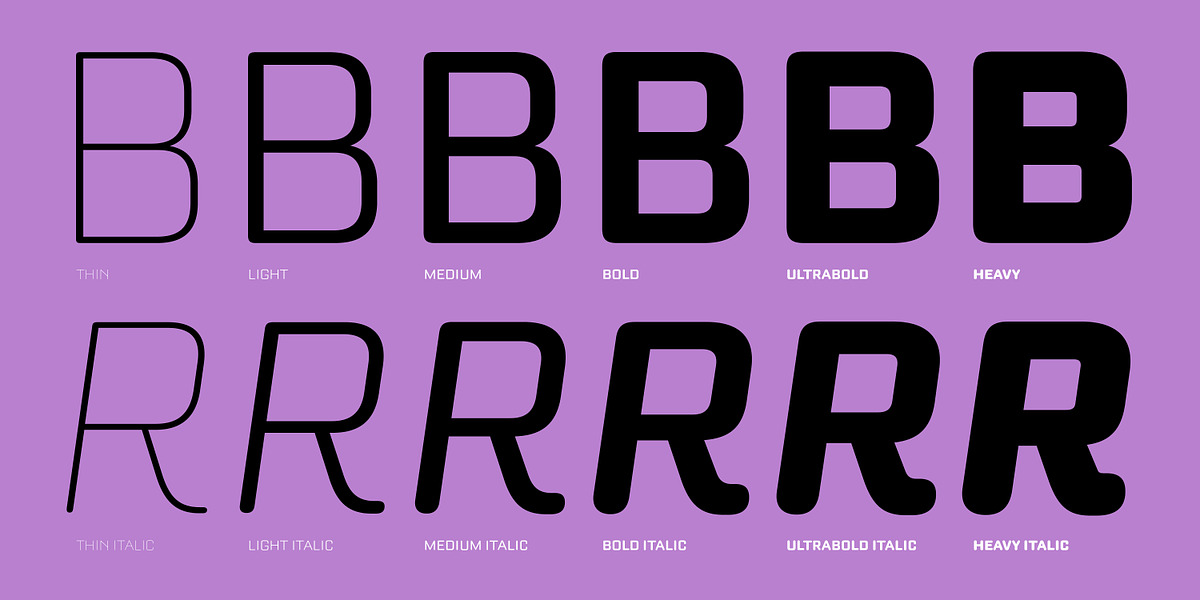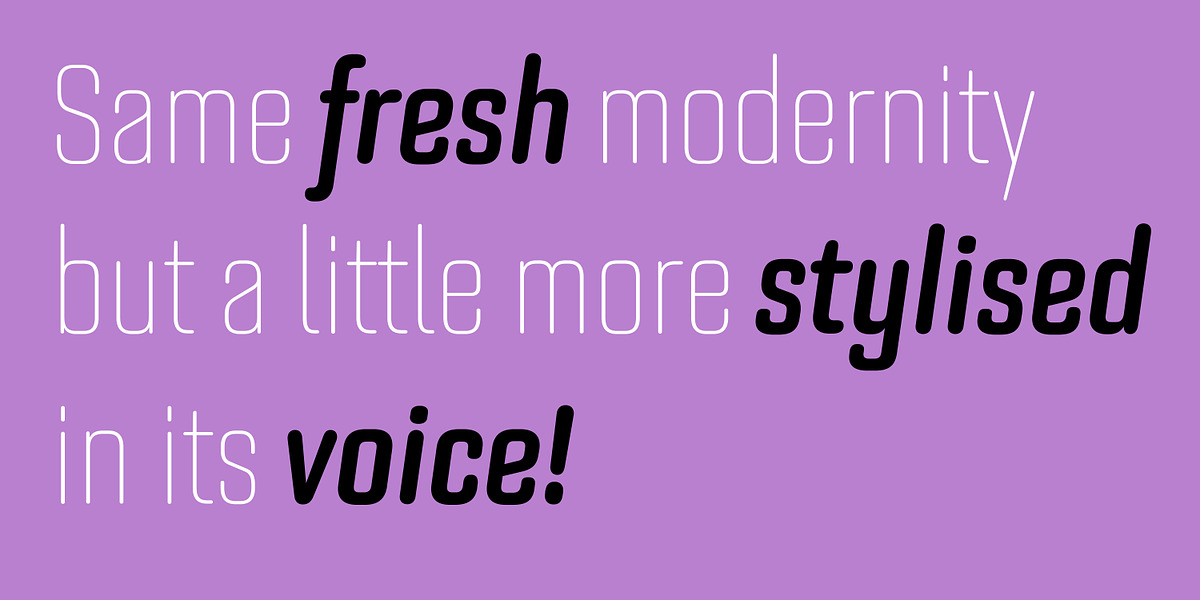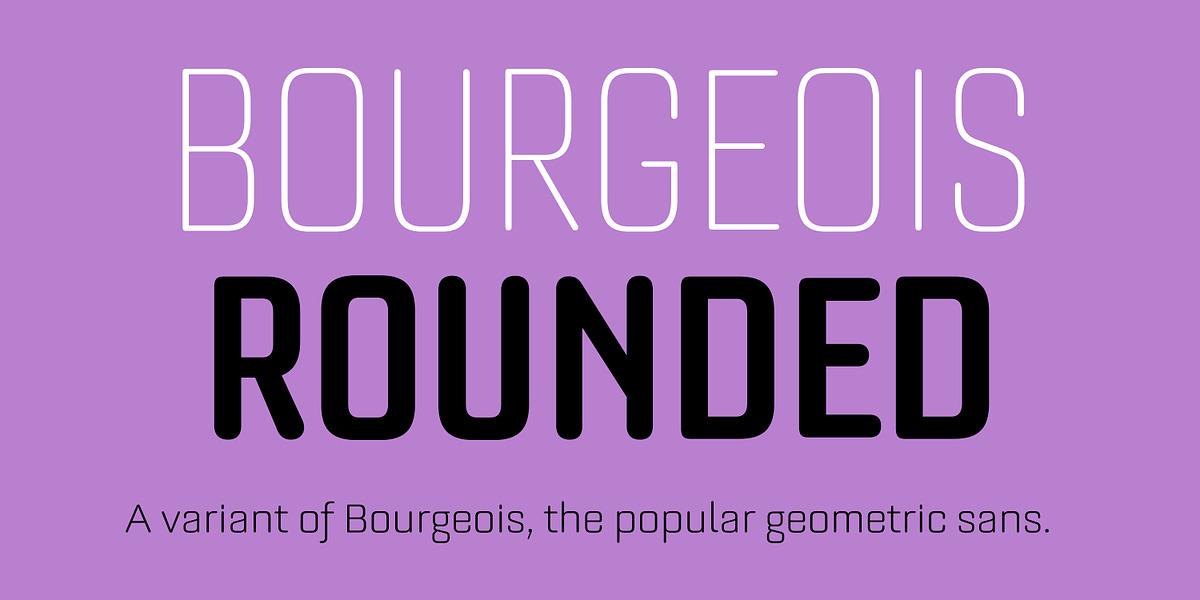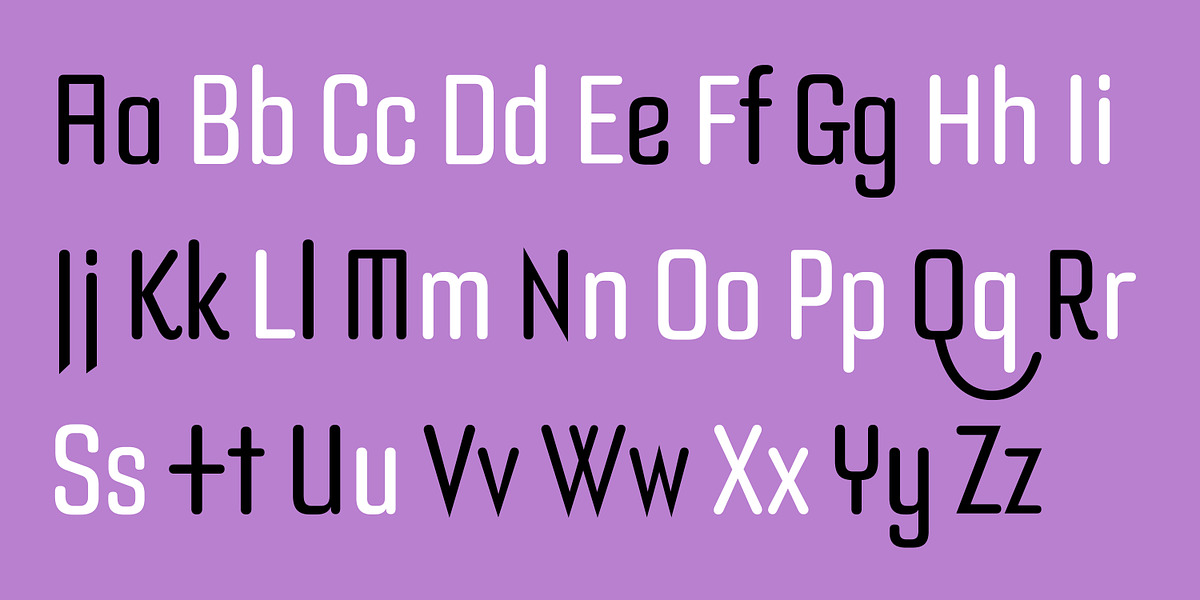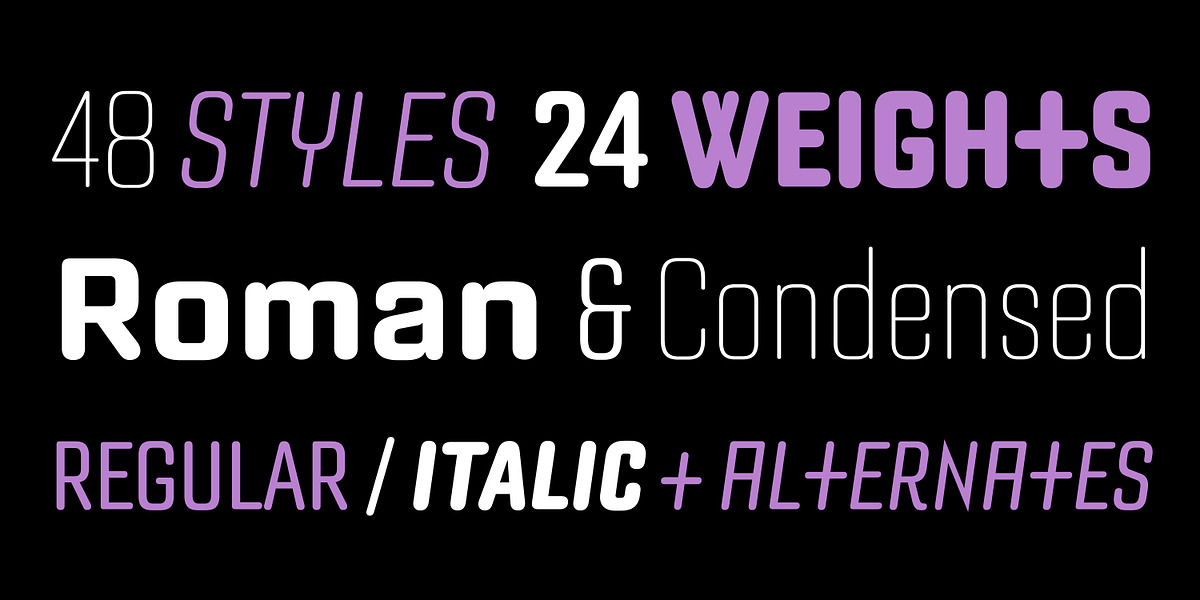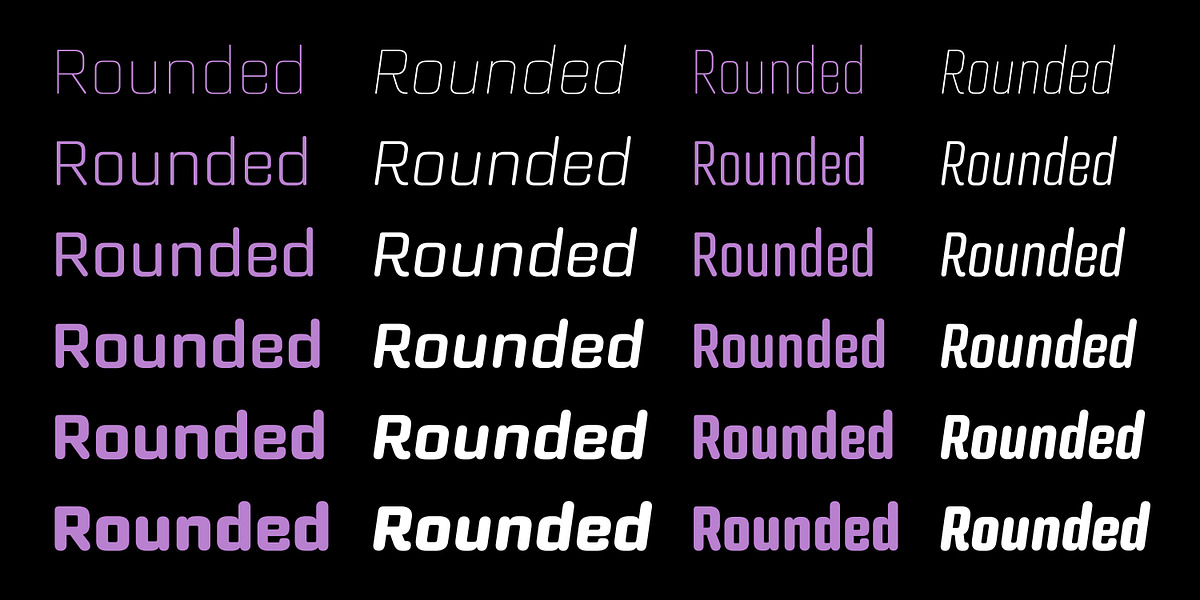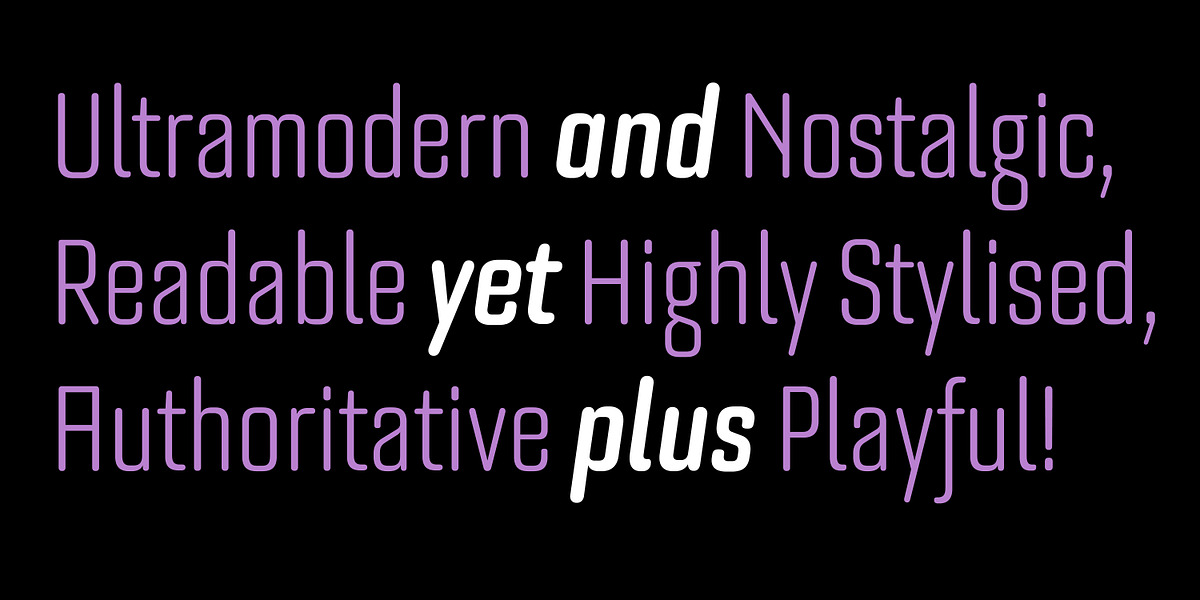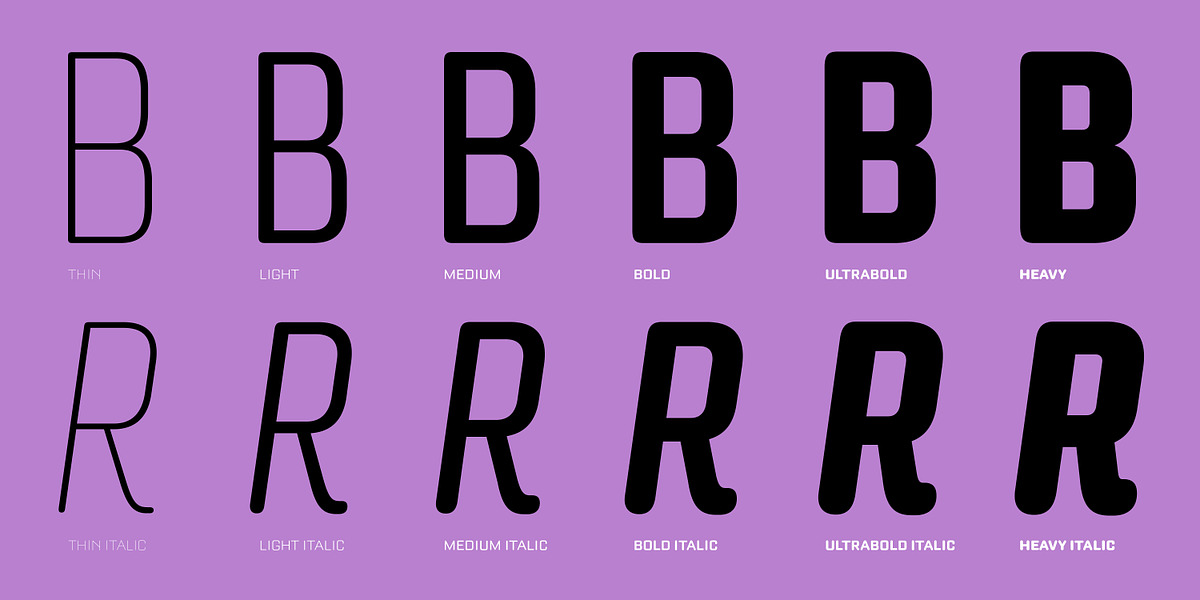
Bourgeois Rounded
Bourgeois Rounded is a contemporary sans-serif font inspired by late 20th century modernism. Its geometric shapes are softened by rounded edges, creating a clean and sleek aesthetic that is both legible and stylish. Bourgeois Rounded is well-suited for a variety of applications, including headlines, short pieces of text, and branding. When combined with its condensed counterpart, it offers a wide range of styles suitable for different text sizes and purposes.